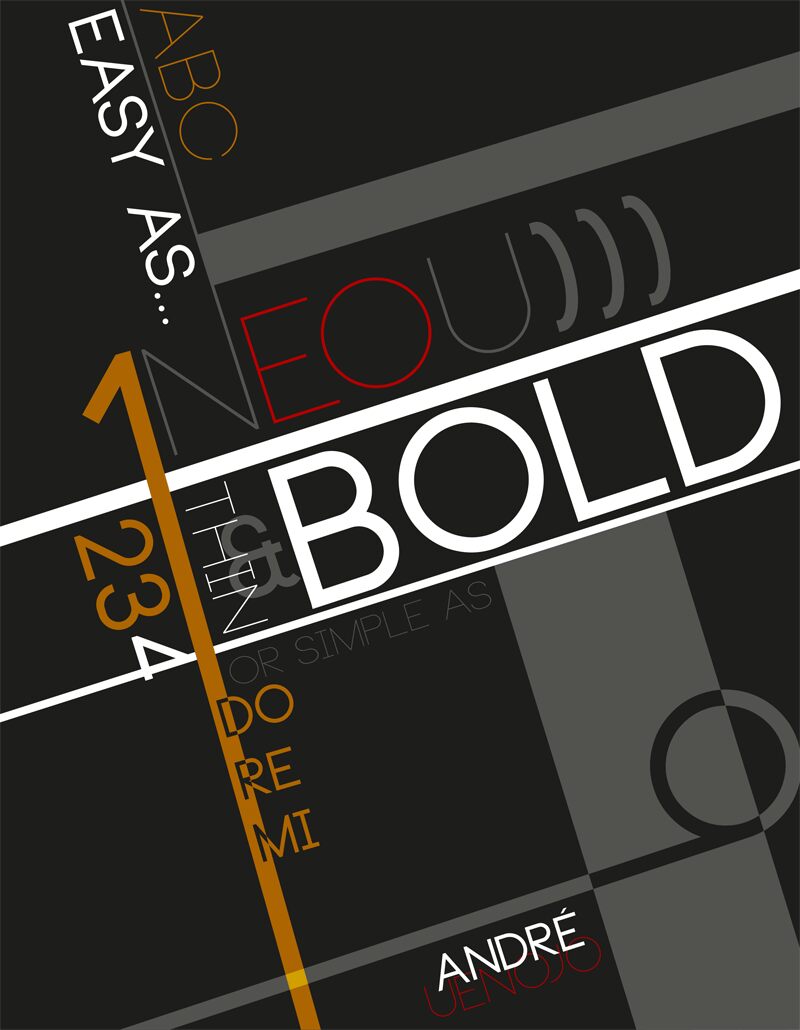
Neou Bold by André Noboru Uenojo of PYRS Fontlab Ltd. is a free geometric sans serif with broad proportions, generous open interiors, monoline drawing, and almost no stroke contrast. Its tall capitals mix circular curves with crisp verticals and sharply cut diagonals.
Photography and architectural illustration can echo its simple geometry, and the cool precision recalls carefully drawn signage, making it useful for fashion campaigns, gallery posters, and design publishing. The same measured shapes suit minimalist packaging and cultural event branding, linking those uses through an orderly silhouette with a distinctly contemporary, understated character.
Neou Bold is a font by PYRS Fontlab Ltd. / Made with FontLab, designed by André Noboru Uenojo in 2012.